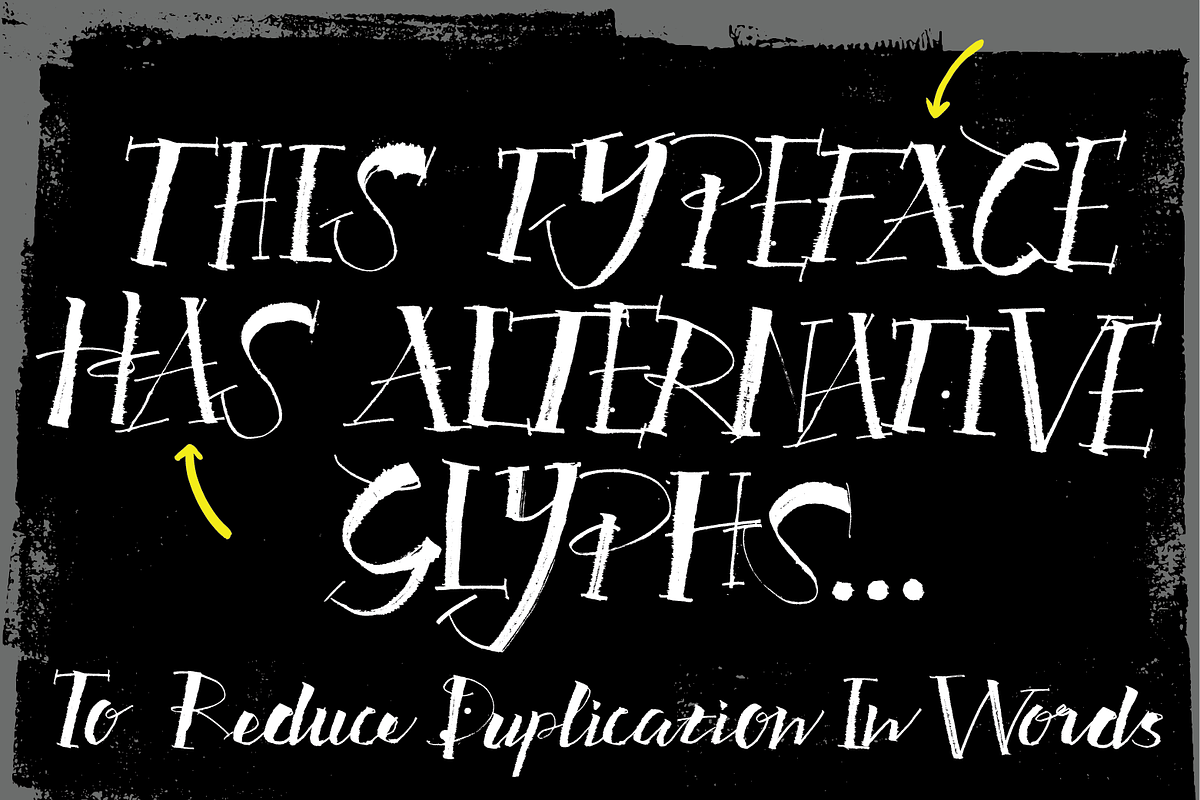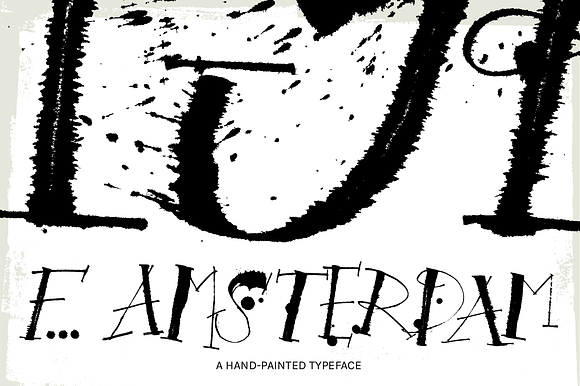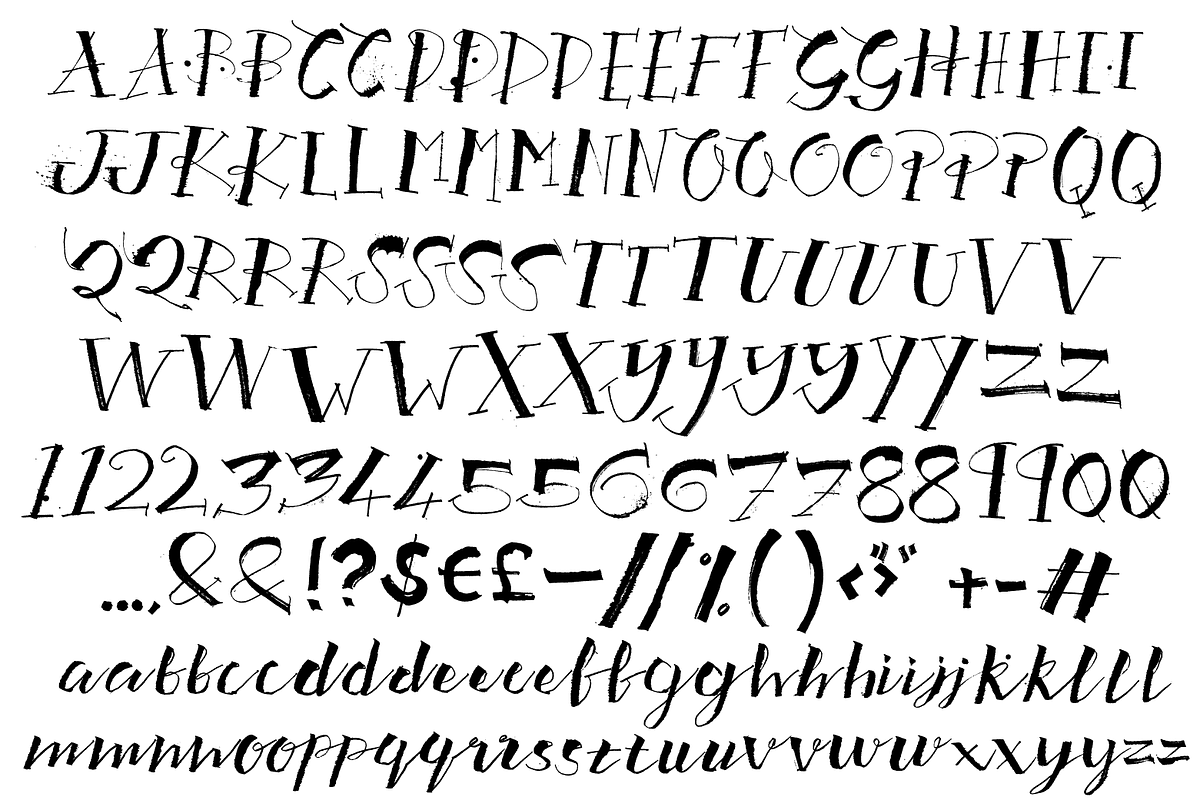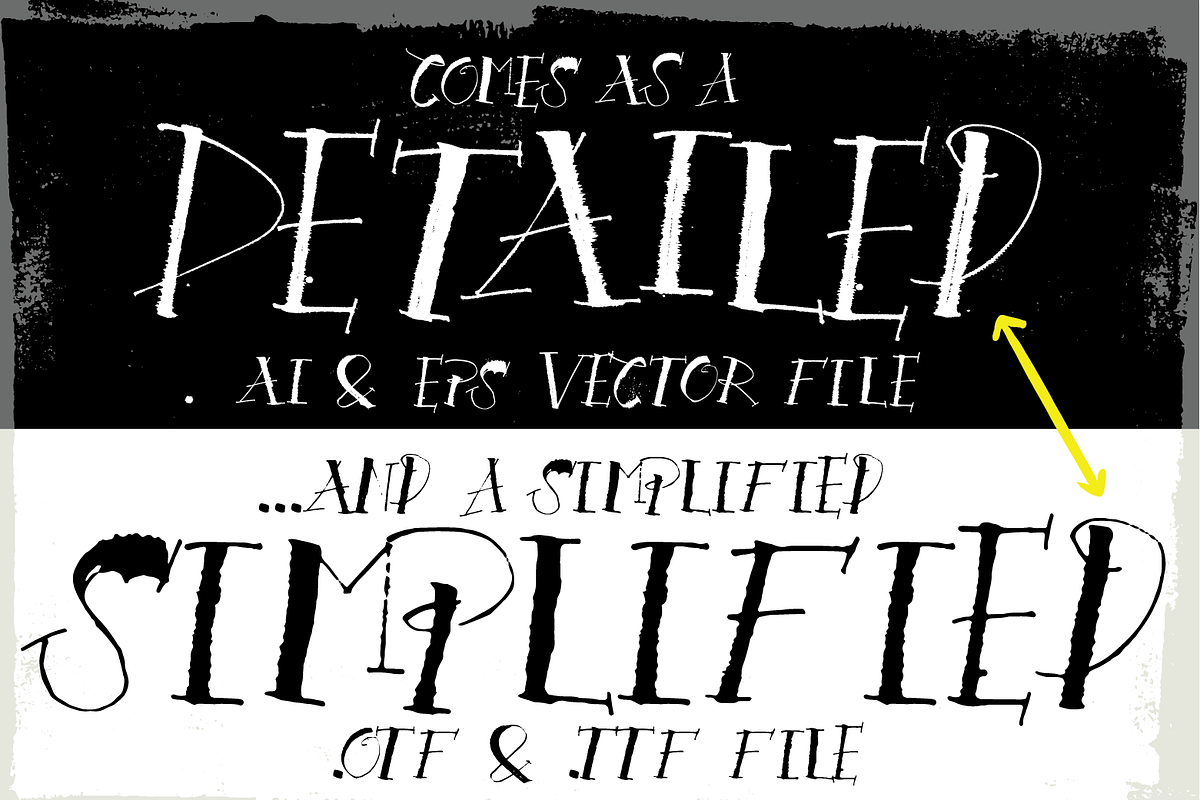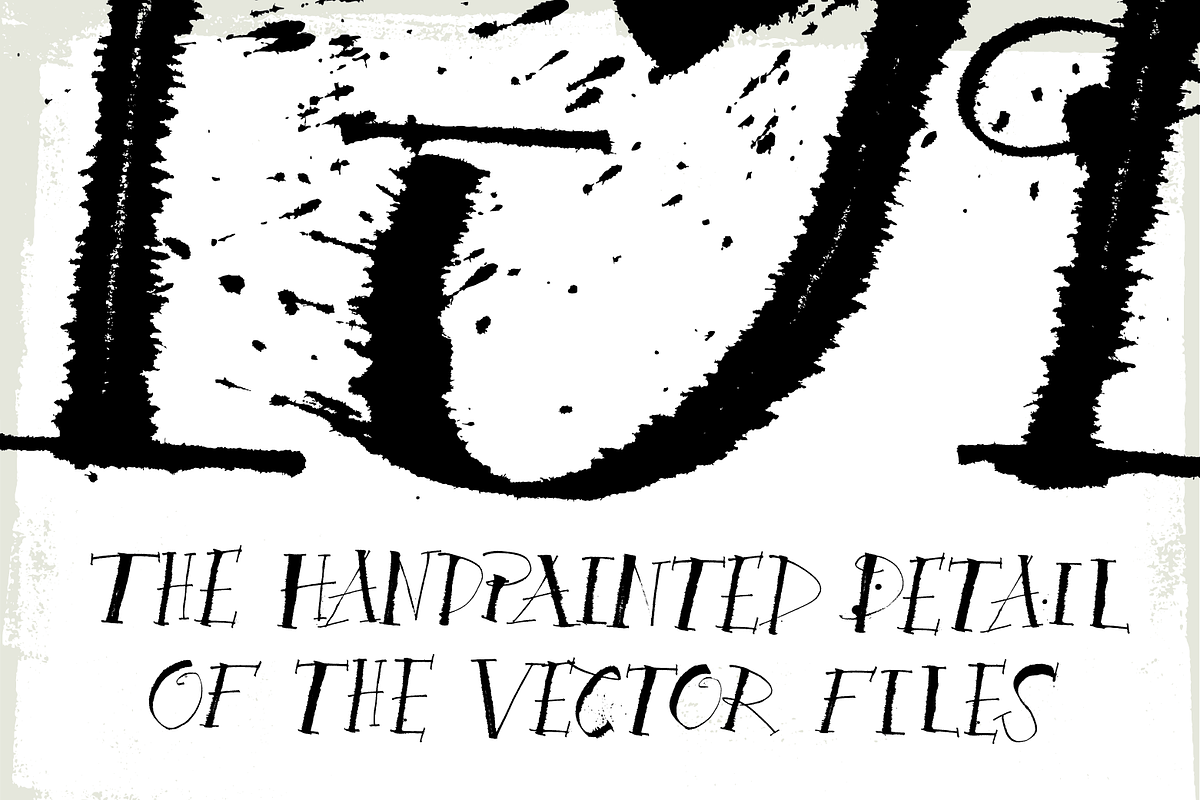
F... Amsterdam
We love getting our hands dirty so that you don’t have to… In fact we love marks, splatters and drips so much that we decided to find a way to keep as much of the hand-painted detail as possible to help you create that authenticly painted look without making a mess.
Wanting a more realistic hand-made feel? We’ve also included alternative versions of each glyph to reduce duplication. We think this gives a feel that someone has created each word rather than it being a bought typeface - As much as possible anyway!
- We’ve also included alternative versions of each glyph to reduce duplication.